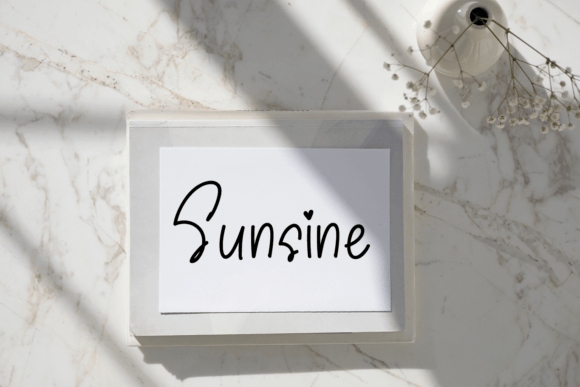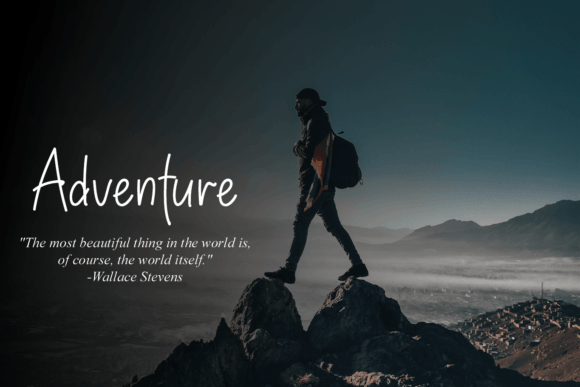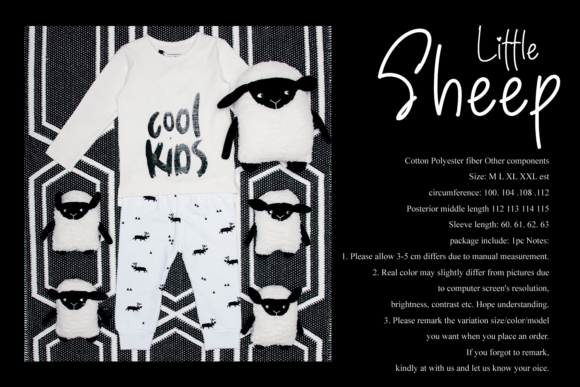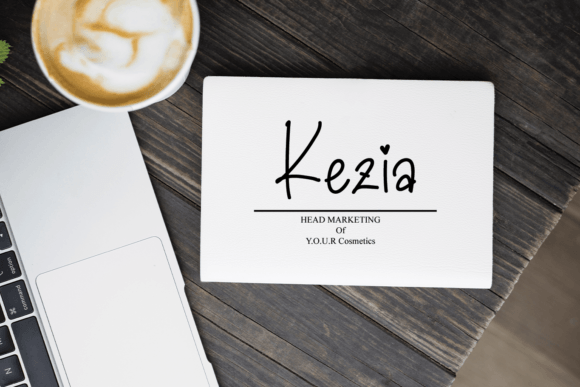
About My Dreams Font
“My Dreams” is a thin-lettered handwritten font, masterfully crafted to become a true favorite. Its contemporary and fresh design makes it a perfect choice for a wide range of creative projects. By adding “My Dreams” to your designs, you have the opportunity to make them outstanding and visually striking.
The thin-lettered style of “My Dreams” adds a touch of delicacy and elegance to your text. The masterful craftsmanship is evident in the precision of each letter, creating a font that is both stylish and versatile. This makes it suitable for various design applications where a thin, handwritten aesthetic is desired.
In contemporary design contexts, “My Dreams” stands out as a font that effortlessly blends modernity with a touch of artistic flair. Its thin letters contribute to a sleek and sophisticated appearance, making it an ideal choice for projects that demand a contemporary and stylish look.
For creative projects of all kinds, “My Dreams” becomes a valuable asset. Whether used in quotes, posters, branding, or any other design, the font adds a subtle and charming element. Its thin-lettered handwriting creates a visually pleasing composition, enhancing the overall aesthetic appeal.
The versatility of “My Dreams” allows it to adapt to various design needs, ensuring that it complements rather than overwhelms the visual elements of your projects. By incorporating this font, you can achieve a harmonious balance between the thin-lettered script and the overall design, resulting in an outstanding and eye-catching outcome.
In summary, “My Dreams” is more than just a font; it’s a design tool that brings a thin-lettered, handwritten elegance to your creative endeavors. Embrace its contemporary and fresh style, and witness how it transforms your projects into visually stunning and outstanding creations. Let “My Dreams” be the key element that elevates your designs to new heights of aesthetic appeal.